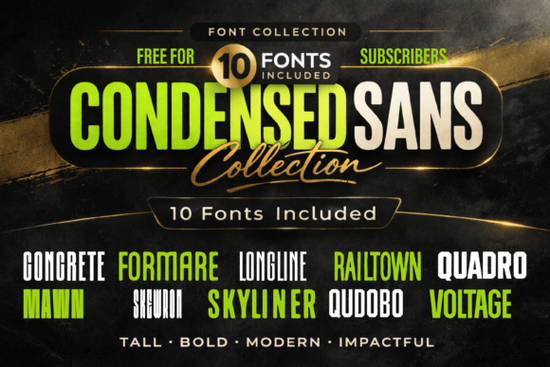
If you work with text in tight spaces but still need it to grab attention, finding the right typeface is key. Standard fonts can look weak or take up too much room. The Condensed Collection – 10 Tall Set Font gives you a complete set of typefaces built specifically for this challenge. It combines a strong vertical look with clean, simple shapes, making it a versatile tool for any designer.
What makes a "tall set font" different from a standard condensed font?
Most condensed fonts simply squeeze letters to save horizontal space. This collection goes a step further by emphasizing the vertical strokes, creating a modern and almost architectural feel. That vertical focus gives each letter a lot of presence without making it wider. So, you get a font that looks bold and contemporary but still fits into narrow columns or tight packaging layouts.
- Strong vertical structure – Creates a clean, organized look that feels reliable and modern.
- High readability – Even at smaller sizes, the letters stay clear. This makes it useful for both headlines and short paragraphs of body text.
- Bold visual impact – The tall shapes naturally draw the eye upward, making the text feel important. It’s a great choice for posters or hero sections on a website.
Whether you are a print-on-demand seller or a branding designer, these 10 fonts offer a lot of flexibility. Instead of searching for one good font, you get an entire family that works together.
- Posters & Headlines: Text needs to be readable from a distance. The condensed nature saves space while keeping the message large and bold.
- Packaging: Product labels have strict space requirements. This font fits more information onto the label without shrinking the text down to nothing.
You aren't just getting one style. The bundle includes a full toolkit for creating strong typography.
- 10 Unique Condensed Sans Fonts – Each has its own personality while sharing the tall, strong structure.
- Regular & Italic Styles – These are essential for creating hierarchy in your text. Use italic for quotes, captions, or secondary information.
- Full Character Set – Uppercase, lowercase, numbers, and punctuation. You won't be stuck if you need a specific symbol for a client project.
This gives you a complete set for a cohesive brand identity. Instead of mixing fonts from different designers, you get a curated collection that naturally fits together.
How can crafters and small businesses use this for print-on-demand?
For small business owners, presentation is everything. This font bundle helps you create professional-looking products without hiring a designer.
- T-Shirt Designs: The tall letters fit perfectly on the back of a shirt or in a horizontal banner across the chest.
- Social Media Templates: Bold typography stops the scroll. Use these fonts for Instagram quotes, sale announcements, or YouTube thumbnails.
- Digital Products: Planners, worksheets, and branding guides look more professional with consistent typography. The italic styles are perfect for headers or sub-sections.
If you need a more rounded and friendly sans-serif for a specific project, the Gigamore Font could be a nice companion. But for bold, modern impact, this tall set is hard to beat.
Here are a few things to consider before adding this bundle to your collection: